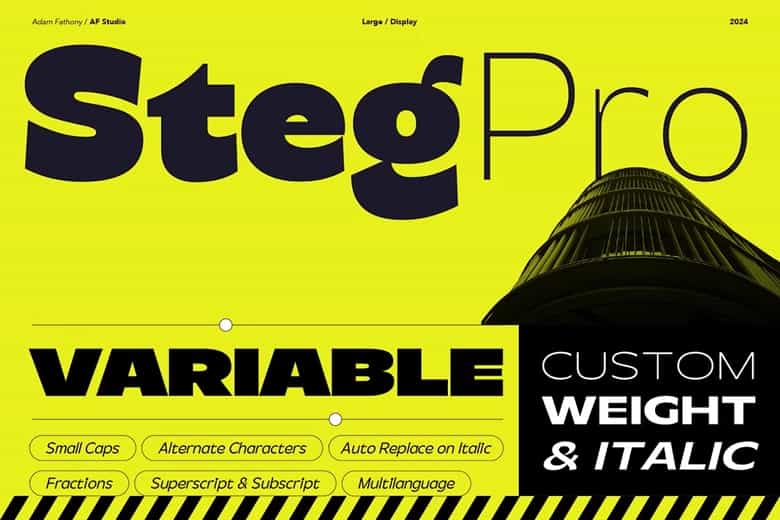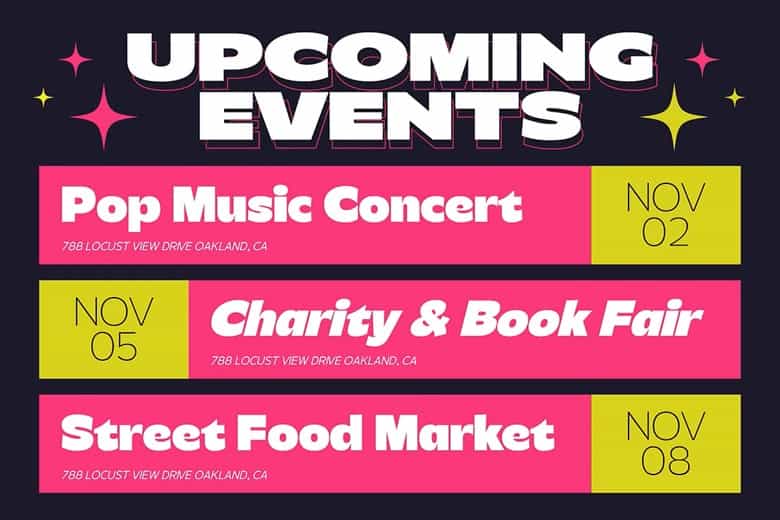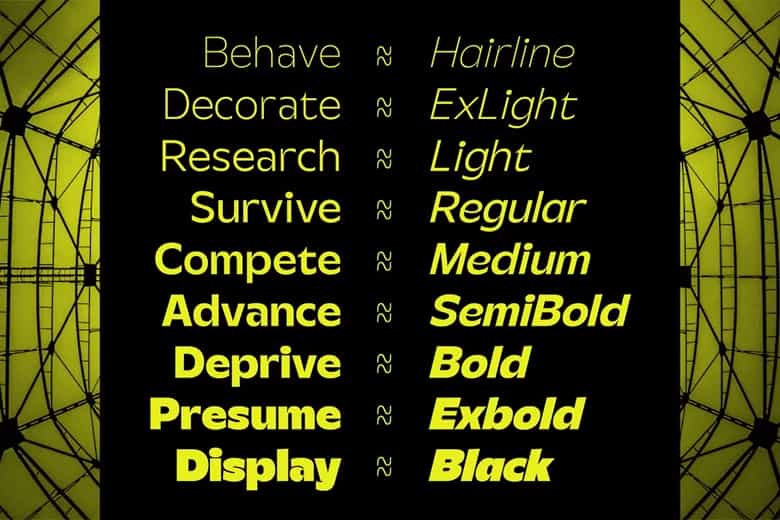
Steg Pro Font
Steg Pro is an ultra-bold and uncomplicated sans serif typeface ideal for headers, titles as well as large sizes. Nonetheless, owing to the system’s sleek, formalistic approach, it conveys a highly striking image. This font features clean lines and straight angles, making it possible to use Steg Pro for contemporary design concepts. One of them is rather heavy, thus, providing an optimal effect in terms of impressiveness, whereas the other one can be used at various contexts due to its less complex design.